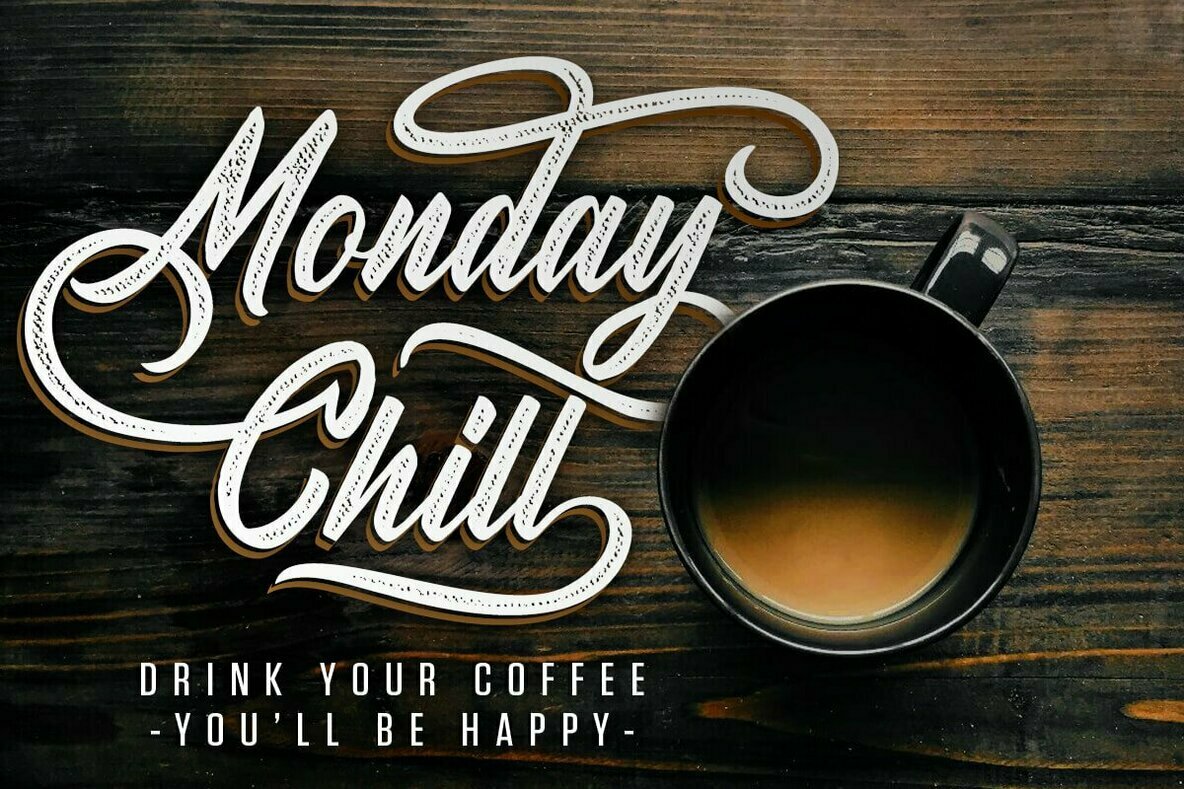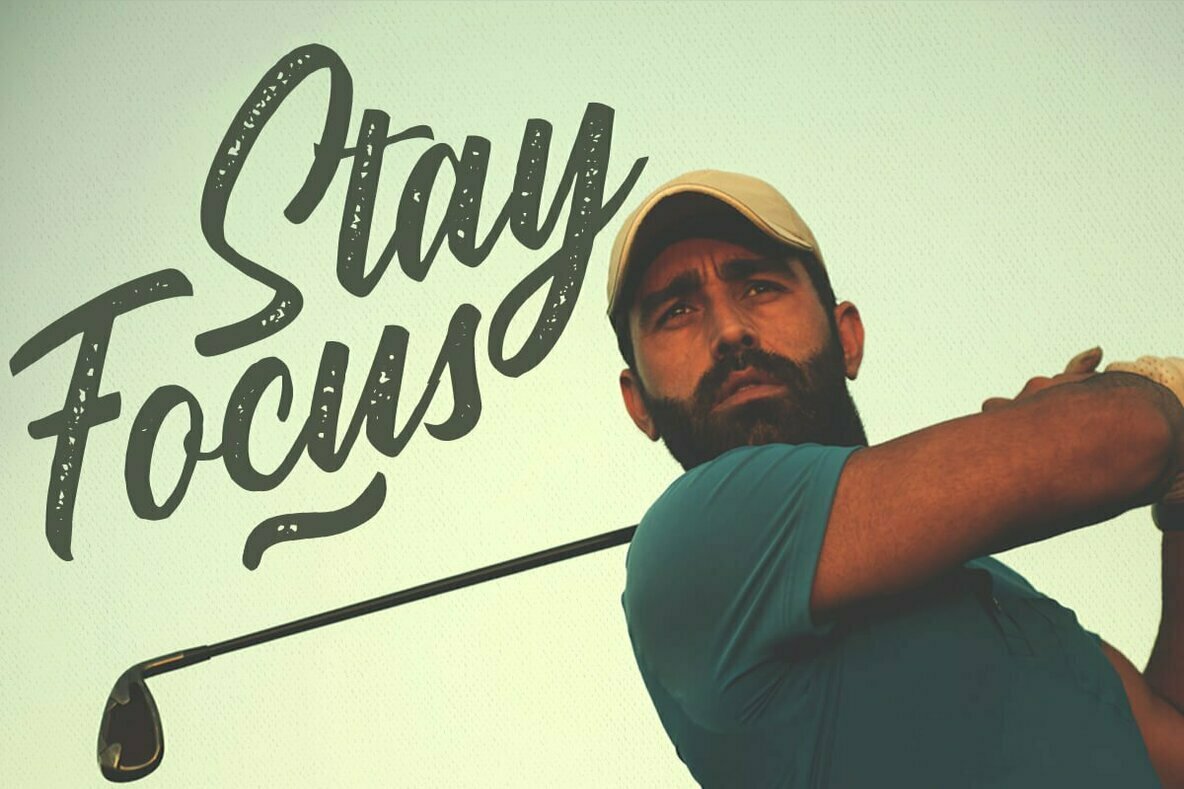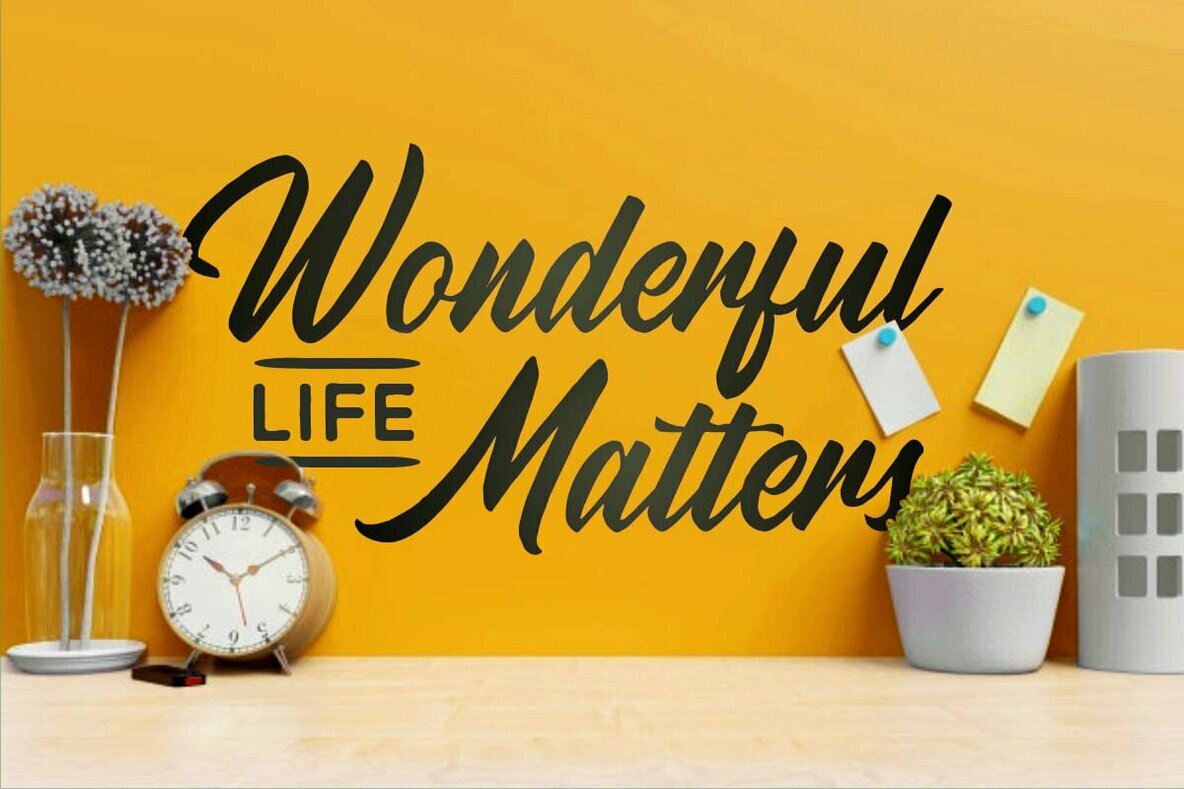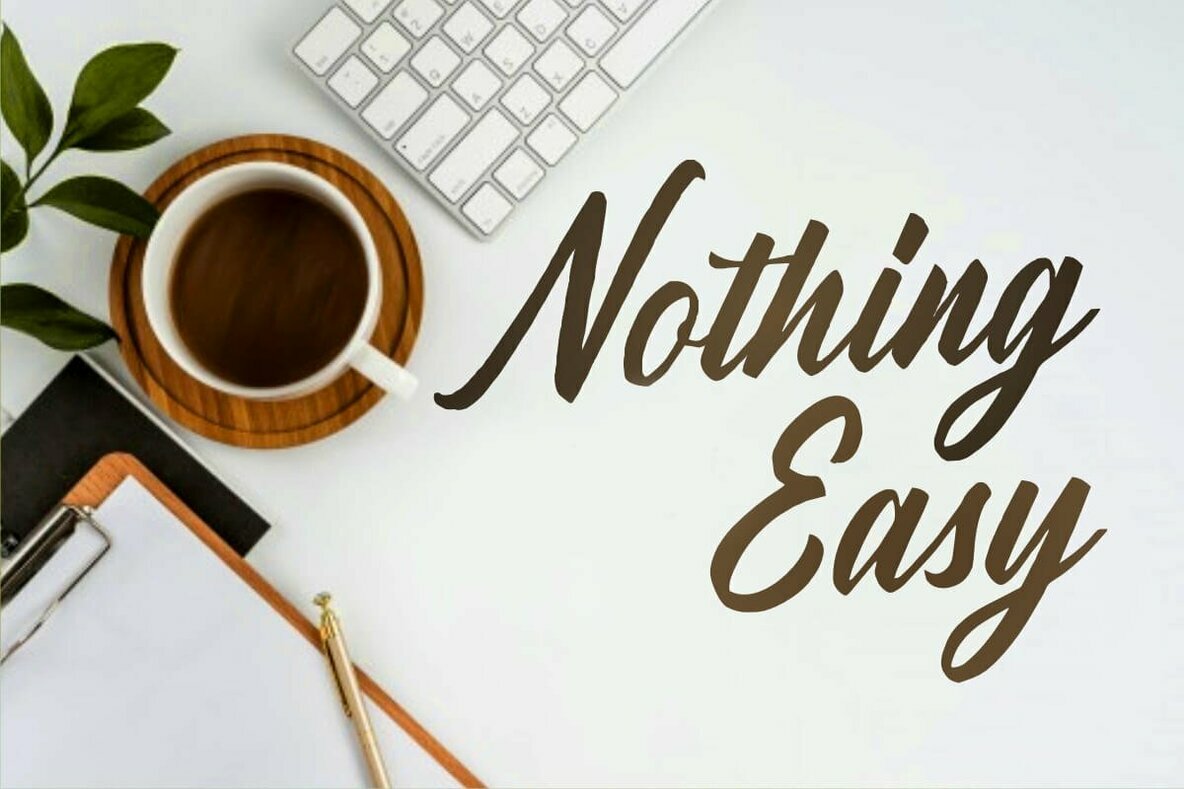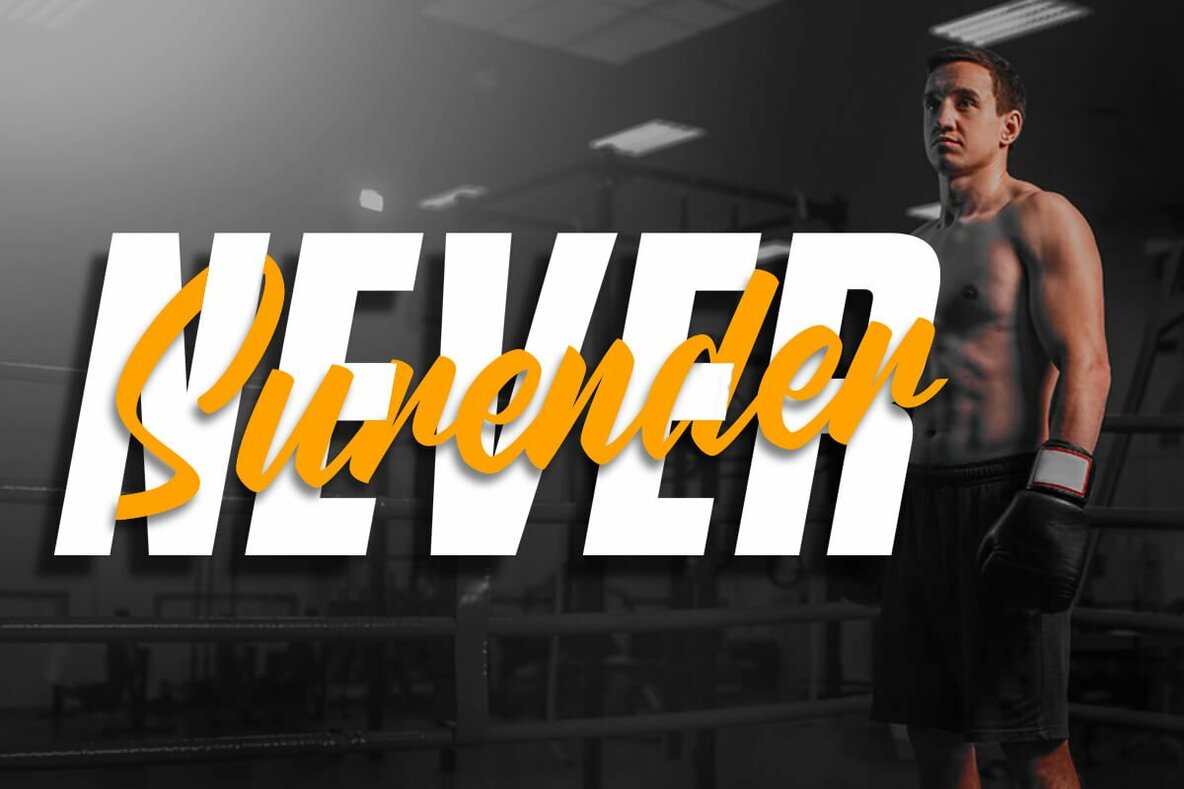
Radicals Font
Radicals offers a distinctive vintage flair that exudes a rustic charm. A solution for graphic designers seeking a typeface suitable for headlines, logos, and more, it seamlessly integrates into various design realms, including apparel, invitations, branding, packaging, and advertising.Radicals: A Rustic Script Typeface